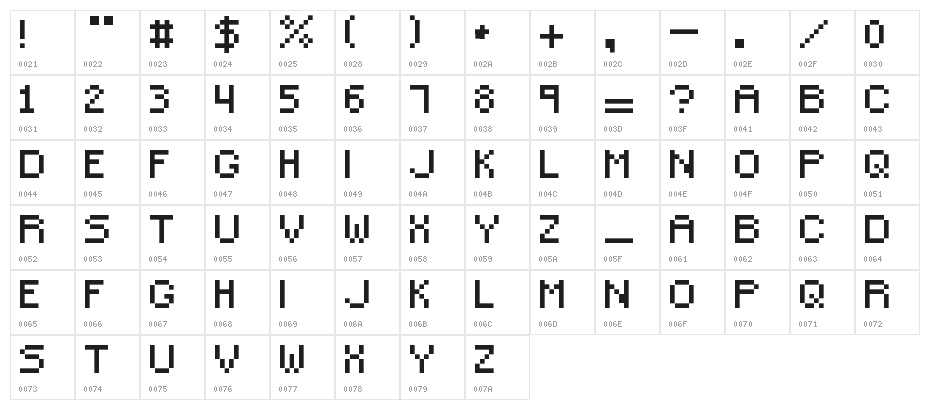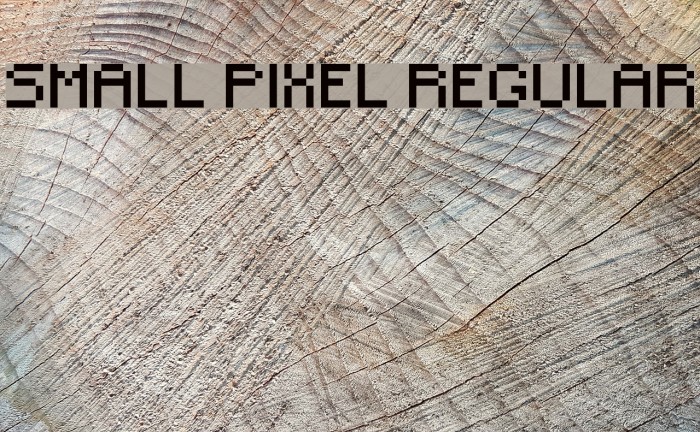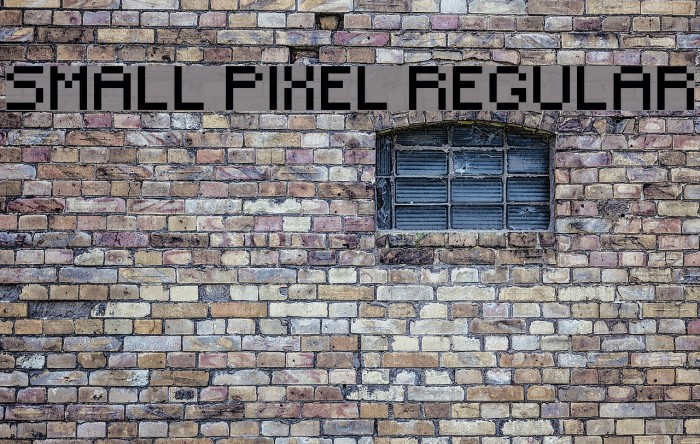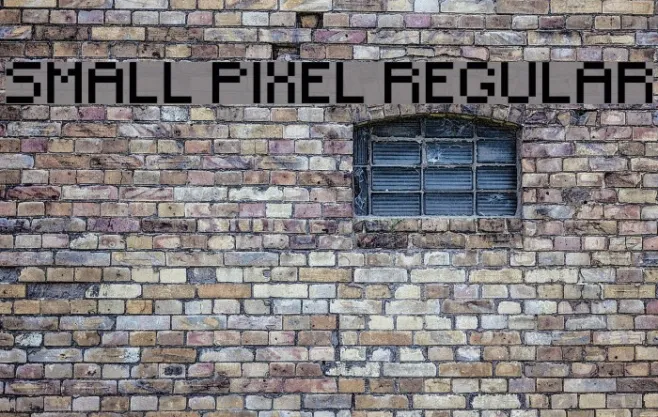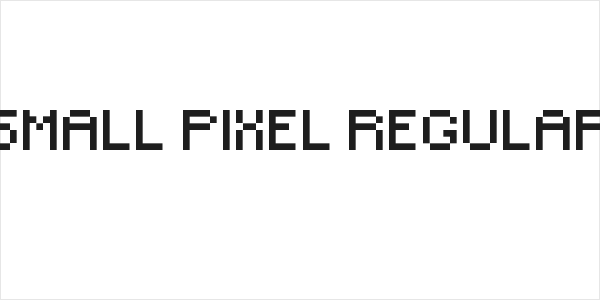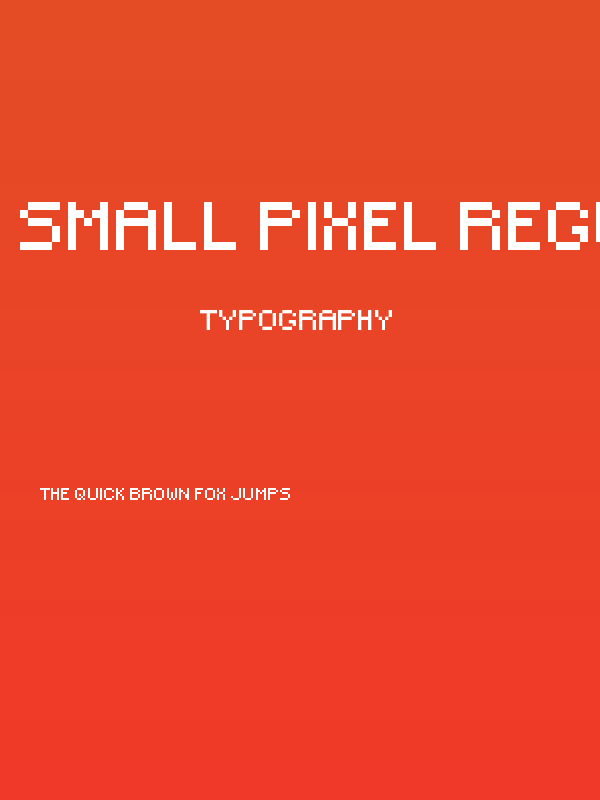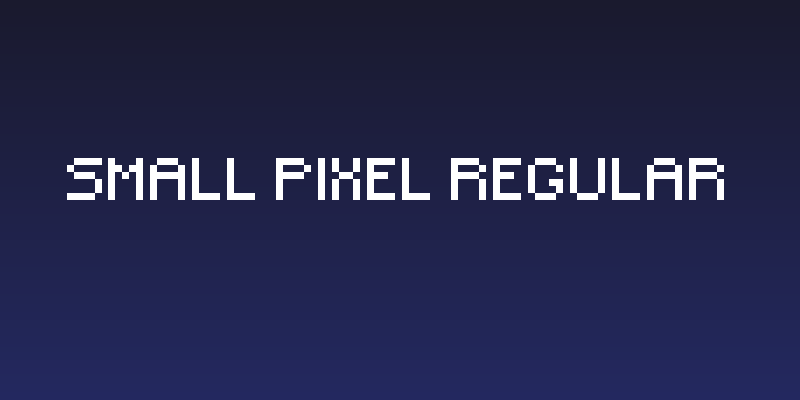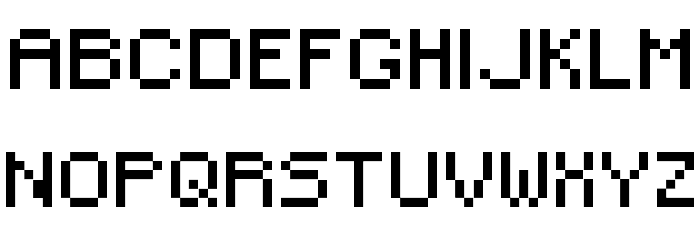
Small Pixel Regular Font
Small Pixel Regular Description
This font is characterized by its pixelated, blocky appearance, reminiscent of early digital displays and classic video games. Each character is constructed with a grid-like precision, giving it a distinctly retro and digital feel. The uniformity in stroke width and the absence of curves contribute to its geometric and mechanical aesthetic. The uppercase and lowercase letters maintain a consistent height, enhancing its monospaced nature. Numbers and special characters follow the same design principles, ensuring a cohesive look across all glyphs. This font's simplicity and clarity make it ideal for digital interfaces and projects that aim to evoke nostalgia.
| Use Case | Headlines, Digital displays, Video games |
| Proposed Projects | Ideal for retro video games, digital art projects, tech-themed designs, and any work requiring a nostalgic digital aesthetic. |